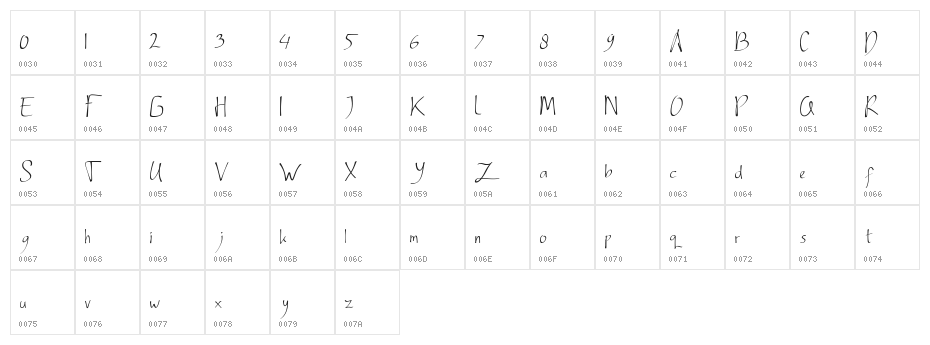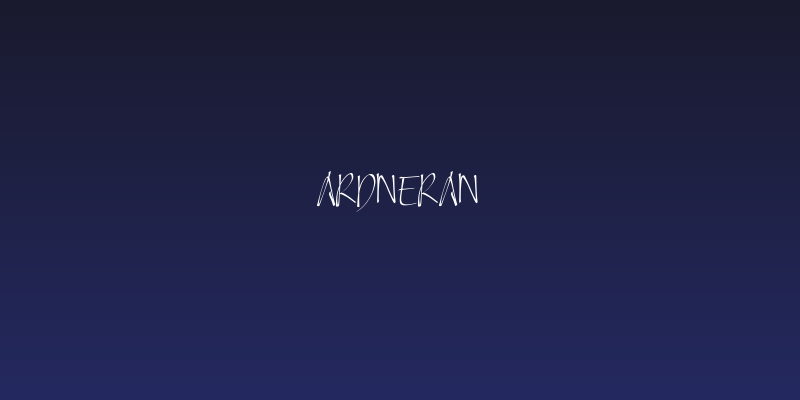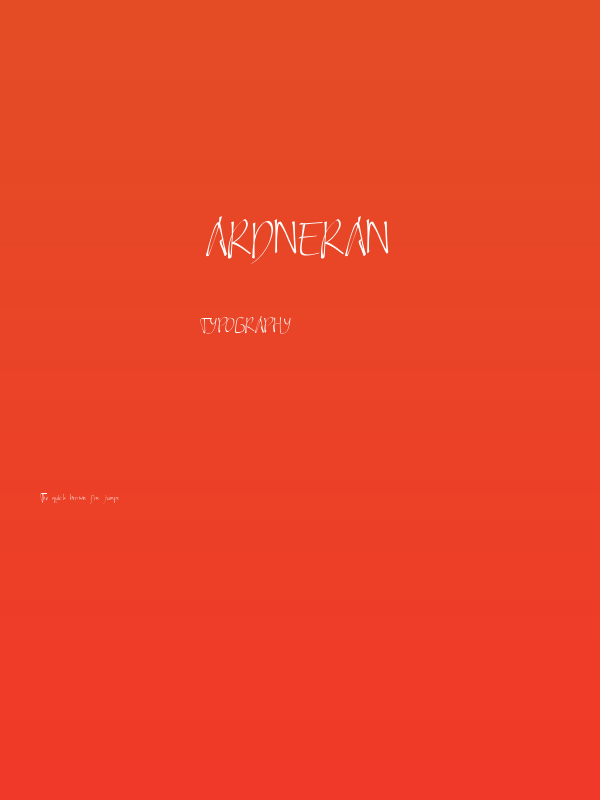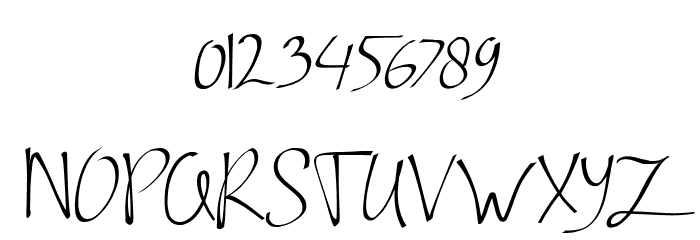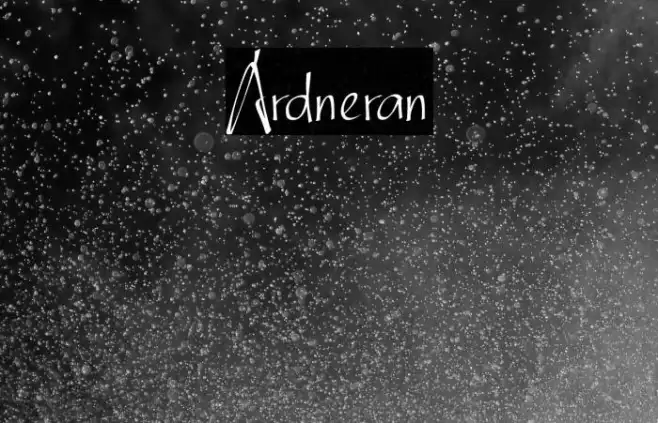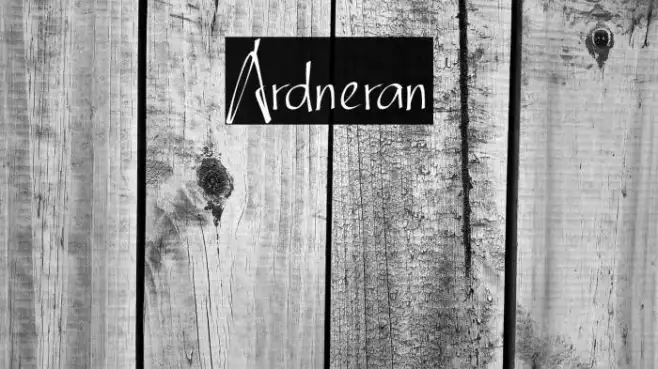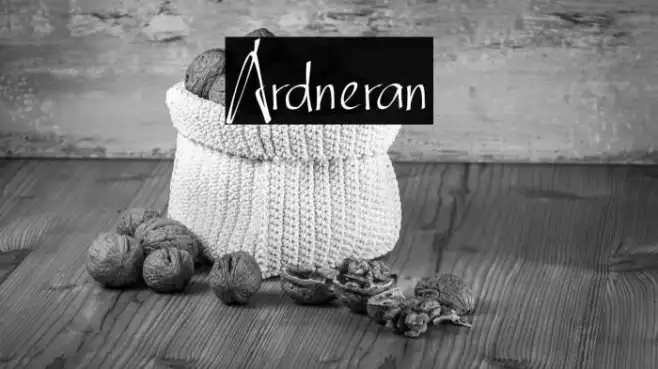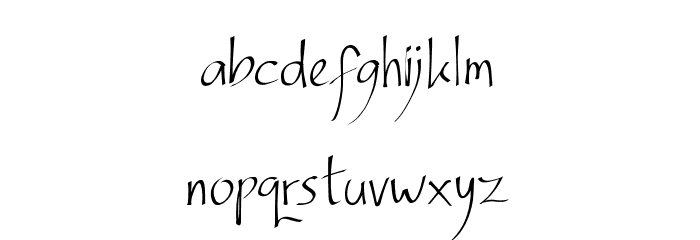
Ardneran Font
Ardneran Description
This font exhibits a unique and artistic style, characterized by its elongated and flowing letterforms. The uppercase letters are particularly distinctive, with exaggerated curves and a whimsical flair that adds a touch of elegance and creativity. The lowercase letters maintain a consistent style, with a slightly more restrained design that complements the uppercase characters. The numerals are crafted with the same artistic touch, ensuring a cohesive look across all characters. This font's playful yet sophisticated appearance makes it suitable for a variety of creative projects.
| Overall Style | Artistic |
| Use Case | Headlines, Logos, Artistic projects |
| Proposed Projects | Ideal for creative projects such as invitations, greeting cards, branding, and artistic posters. |